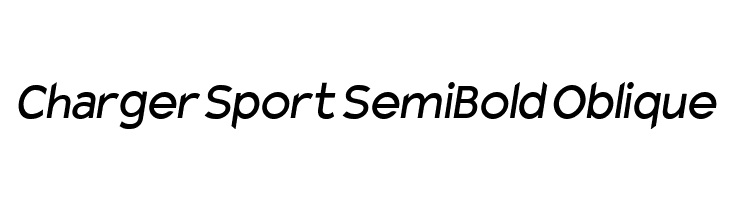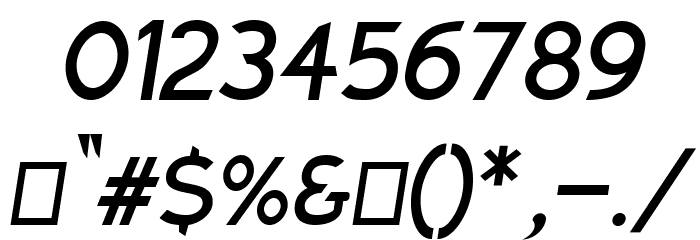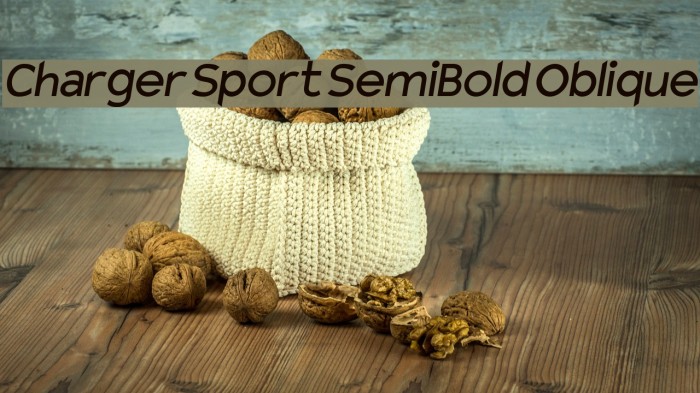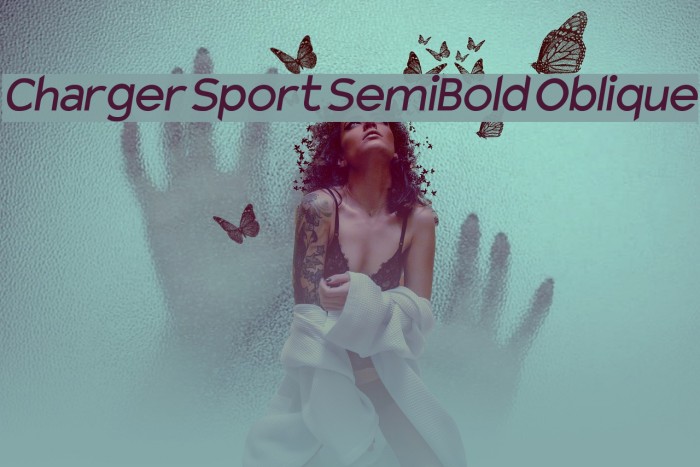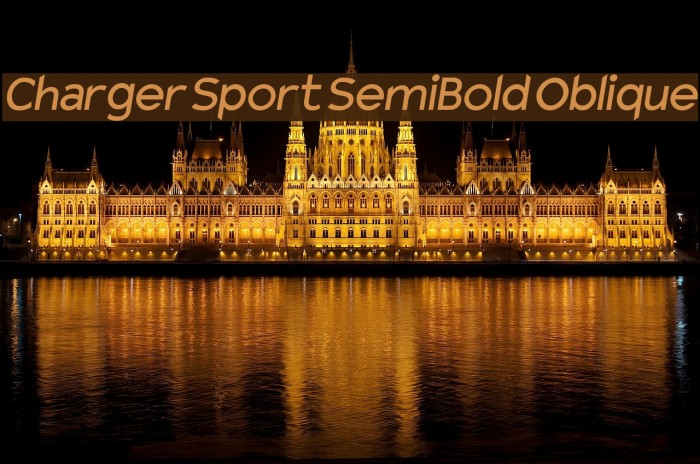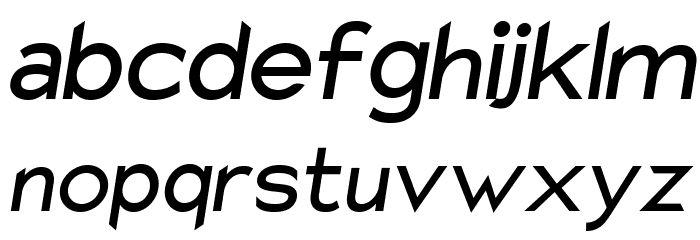
Charger Sport SemiBold Oblique Font
This font features a dynamic and sporty design with a semi-bold weight and oblique style, giving it a sense of motion and energy. The characters are sleek and modern, with smooth curves and a slight forward slant that enhances its contemporary feel. The uppercase letters are bold and assertive, while the lowercase letters maintain a consistent flow. The numerals are clear and easy to read, making them suitable for various applications. Special characters are well-defined, adding versatility to the font's usage. Overall, this font exudes a sense of speed and modernity, making it ideal for projects that require a bold and energetic aesthetic.
A dynamic, semi-bold oblique font with a sporty and modern design.
• Proposed Projects: Ideal for sports branding, dynamic advertisements, modern website headers, and energetic poster designs.
• Category: Sans-Serif
• Contrast: Medium
• Overall Style: Modern
• Use Case: Headlines, Logos, Advertisements